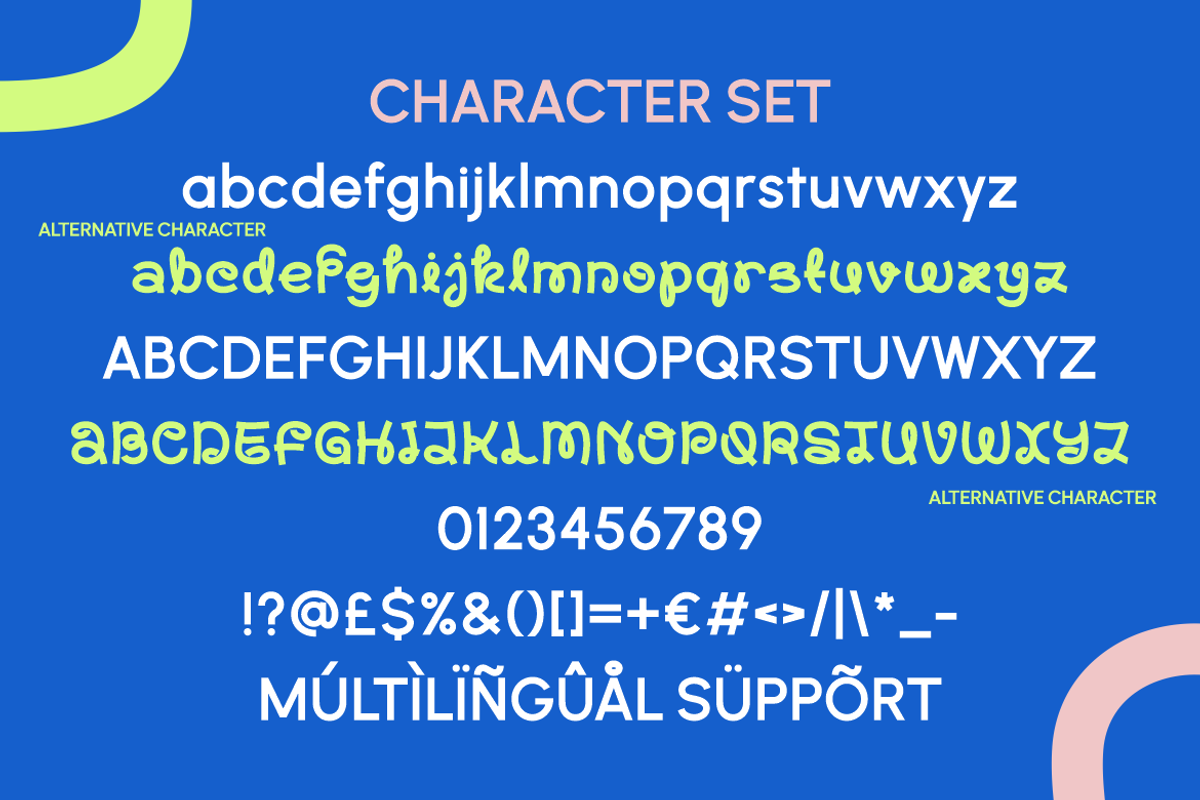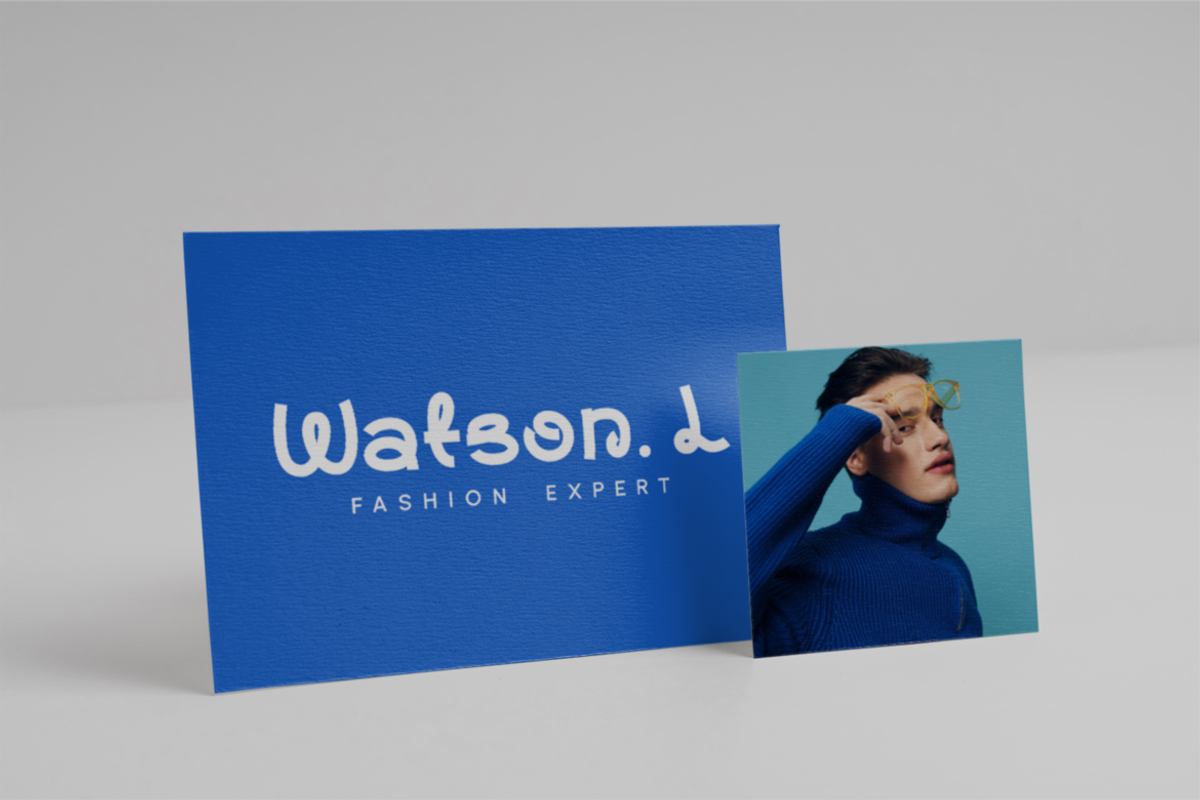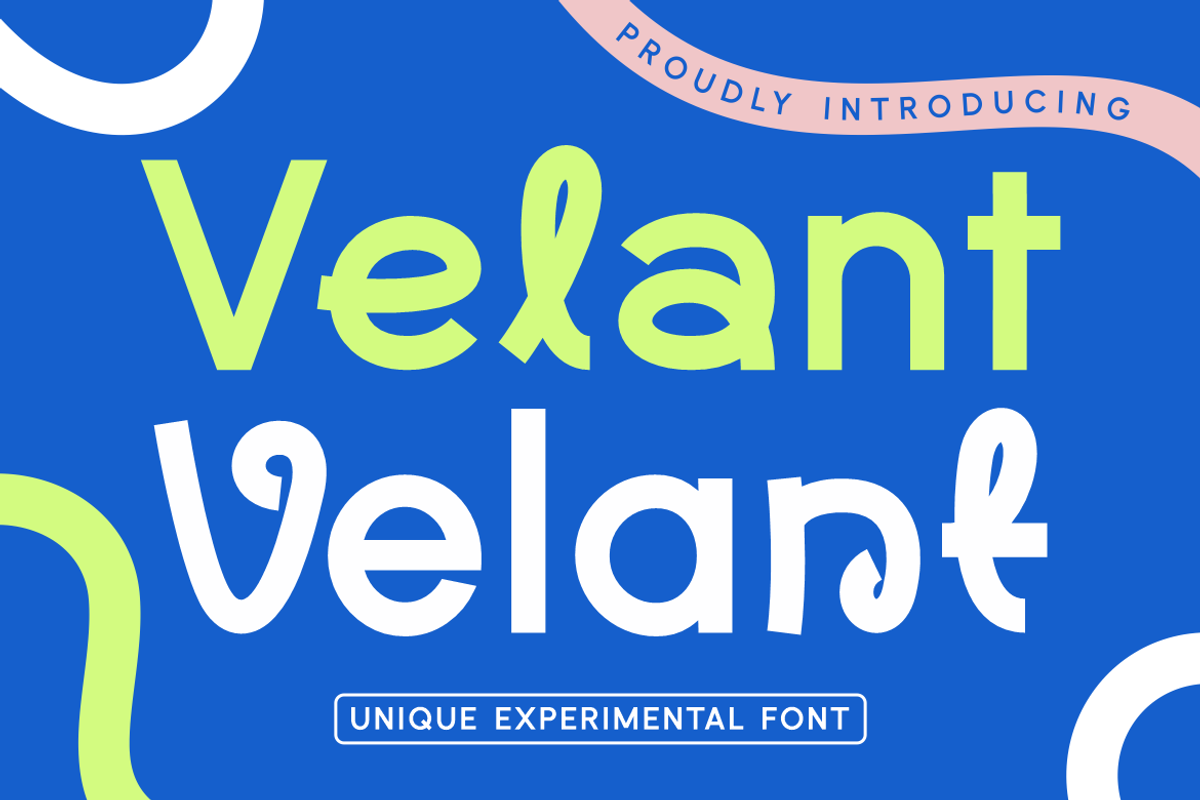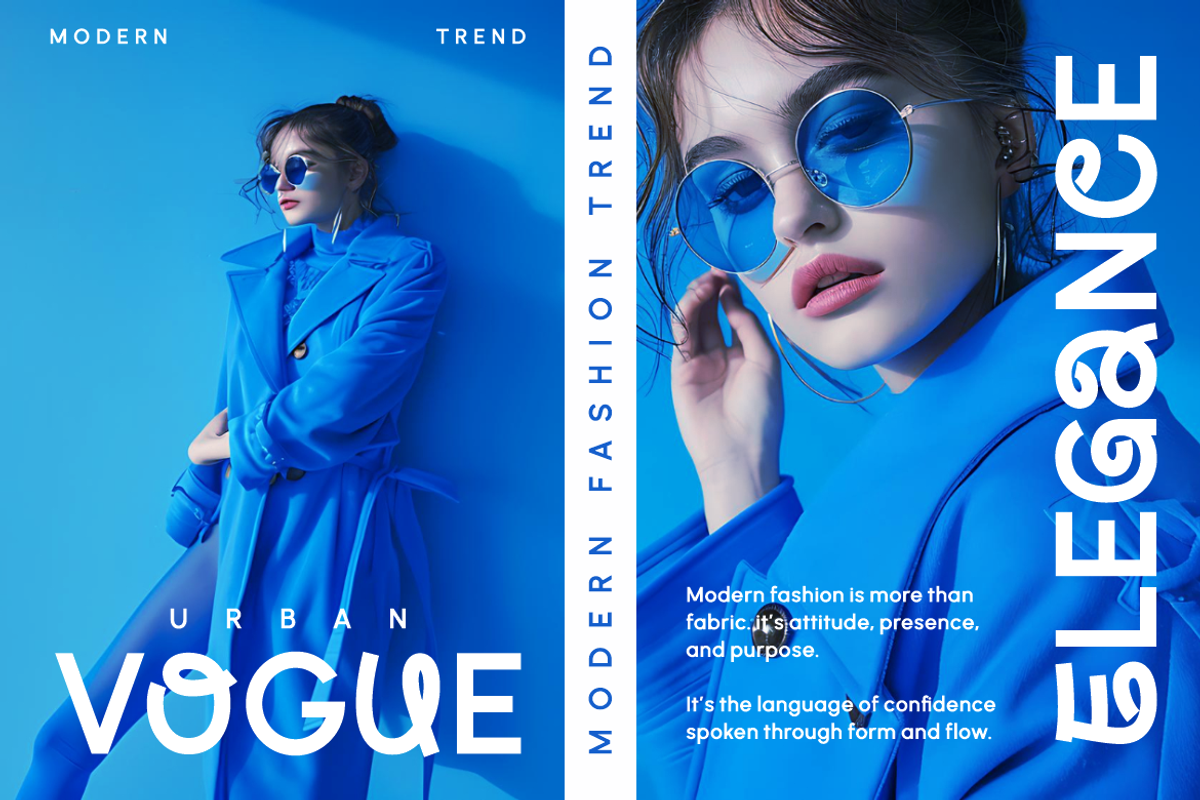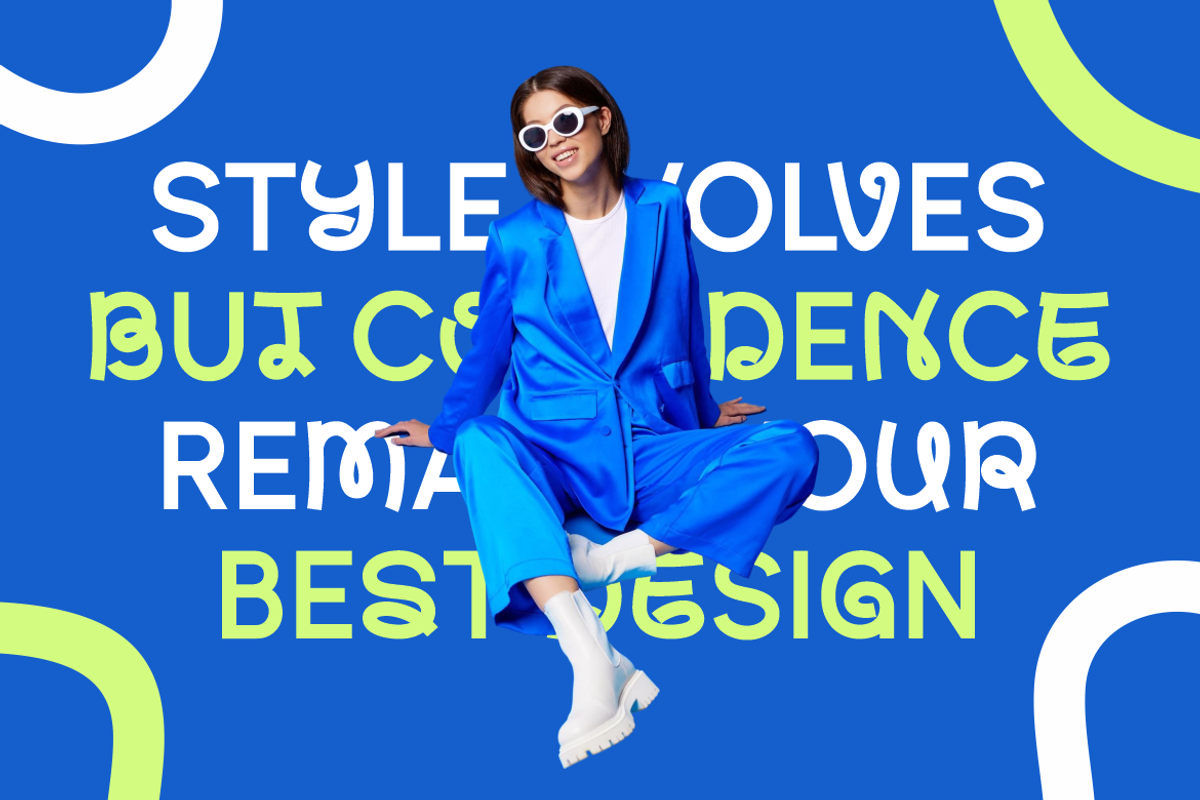
Velant Unique Experimental Font
Velant Unique Experimental Font is a modern display typeface built around expressive form and confident rhythm. Each character shows a bold weight with balanced proportions, making the letters feel solid without appearing heavy. The strokes are smooth yet intentionally irregular, creating a subtle experimental tension across words. Curves are playful and fluid, while straight cuts add structure and clarity. The x-height feels generous, which improves readability at medium to large sizes. Letter spacing stays controlled, allowing headlines to feel compact but still breathable. Several characters feature unexpected shapes that break convention while remaining functional. This design choice gives the font a distinctive voice that feels fresh and contemporary. Velant Unique Experimental Font fits projects that require personality without sacrificing legibility. The overall construction feels modern, confident, and visually engaging, making it suitable for designers who want something different but practical.
Velant Unique Experimental Font works especially well for logo design, branding systems, advertising layouts, and bold headlines. It brings strong presence to posters, magazine covers, packaging, and product labels. The font also performs well in creative quotes, editorial titles, film titles, and promotional graphics. Its experimental nature supports fashion brands, lifestyle products, creative studios, and digital startups. The alternates add flexibility, allowing designers to customize wordmarks and visual identities easily. Multilingual support expands its usability for global projects and international campaigns. The font pairs nicely with clean sans or neutral serif fonts for balanced layouts. Velant Unique Experimental Font helps brands communicate confidence, originality, and modern taste. It is designed for creatives who value distinctive typography that stands out across print and digital media.